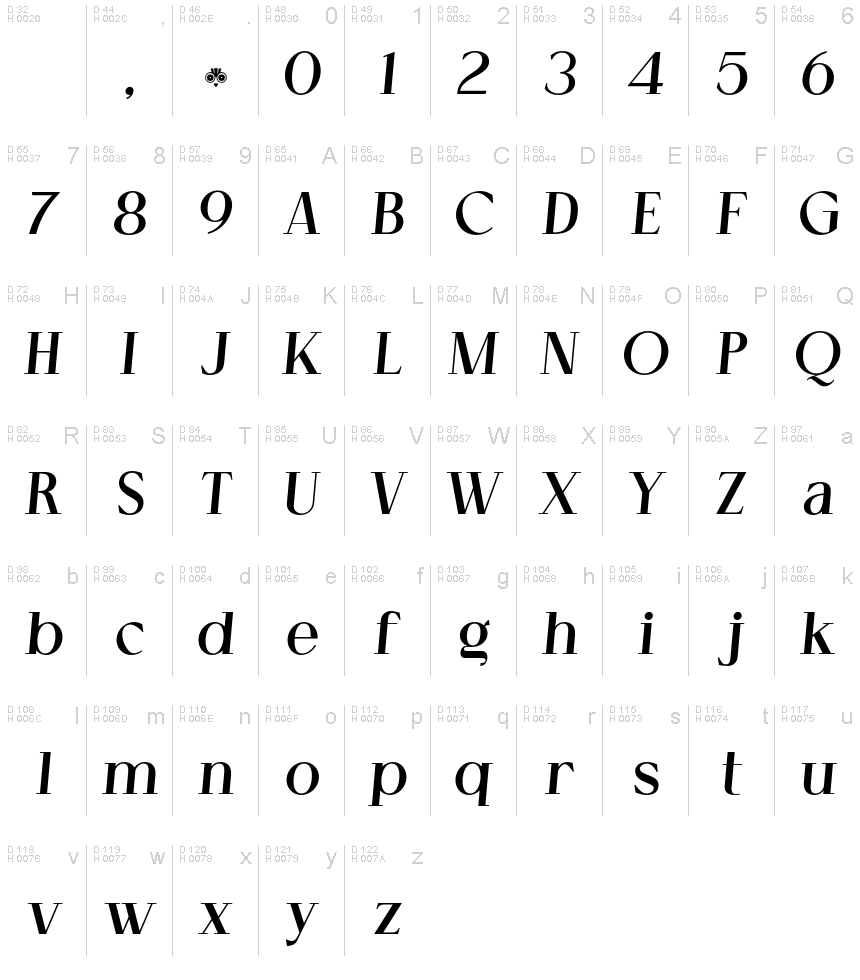
Cellofy Bold Italic font, from the distinguished Cellofy family by Owlking Project, embodies elegance and sophistication. With its notable serif style and bold italic form, it offers a dynamic balance of tradition and flair. This free font for personal use is perfect for conveying a sense of classic refinement with a modern twist.
The striking features make Cellofy Bold Italic ideal for branding projects that demand attention and elegance, such as luxury product packaging or upscale event invitations. The bold strokes ensure readability while maintaining stylistic richness. As a free download, it's an excellent choice for designers seeking to enhance their creative projects with distinction.
Explore the charm of this strong typeface and elevate your design narrative effortlessly!
The striking features make Cellofy Bold Italic ideal for branding projects that demand attention and elegance, such as luxury product packaging or upscale event invitations. The bold strokes ensure readability while maintaining stylistic richness. As a free download, it's an excellent choice for designers seeking to enhance their creative projects with distinction.
Explore the charm of this strong typeface and elevate your design narrative effortlessly!